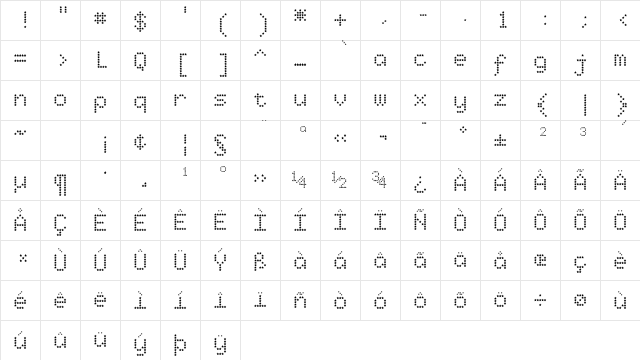
StarryType Regular Font Preview
StarryType Regular
StarryType Regular Font Details
Design Context for StarryType Typeface
StarryType is a composed and adaptable typeface that performs quietly and consistently across a wide range of design contexts.